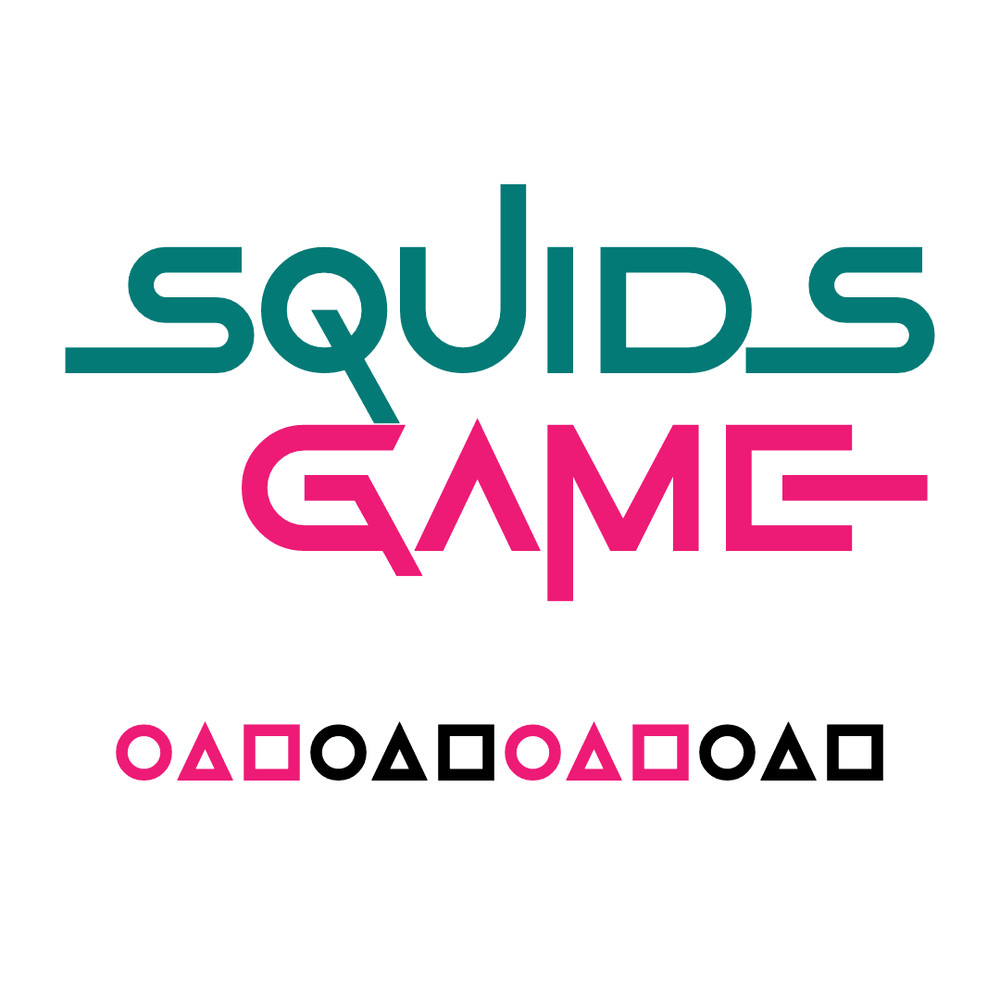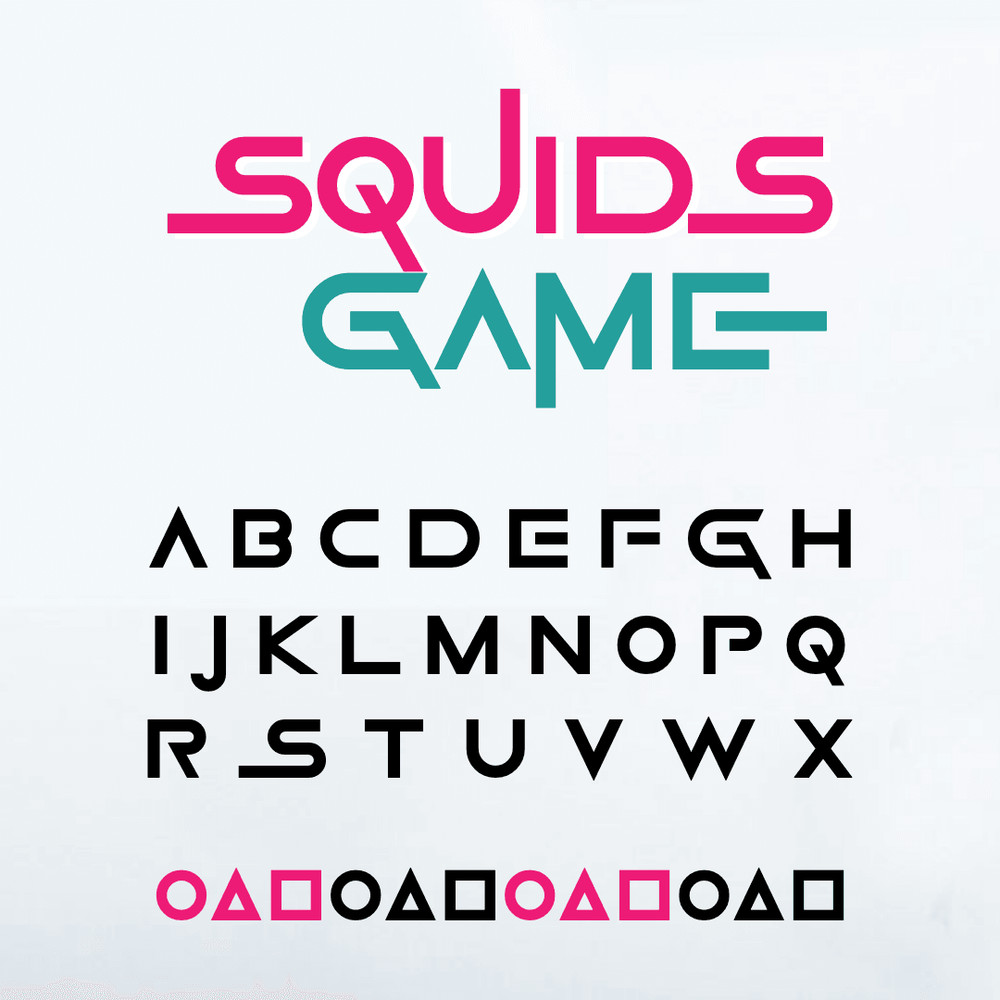
Squid Game Font - Bold & Iconic Typography for Creative Projects
🎮 Squid Game Font – Bold, Unique, Iconic! 🎮
Bring the thrilling essence of the hit series to your designs with the Squid Game Font. Inspired by the iconic typography, this font is perfect for creating bold and attention-grabbing projects.
Perfect For:
- Posters & Banners
- T-Shirts & Merchandise
- Social Media Graphics
- Video Titles & Branding
- Gaming Projects
Key Features:
- Clean and bold design for standout visuals